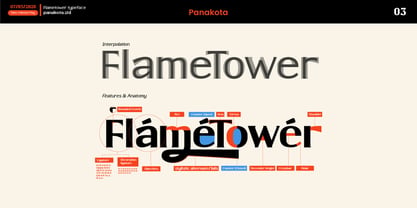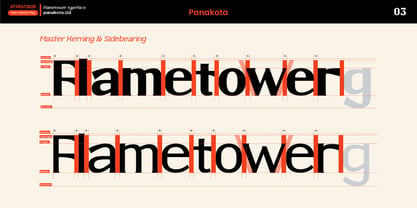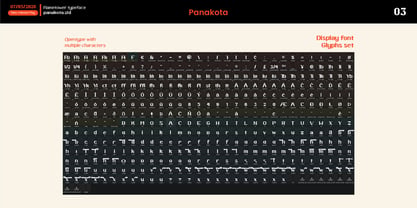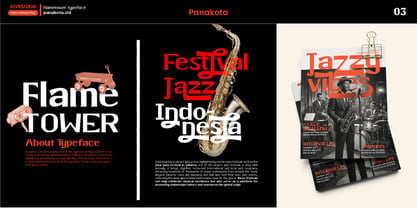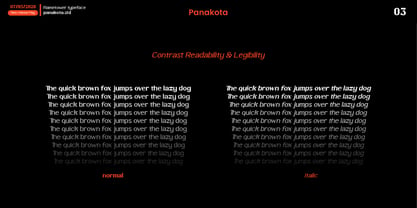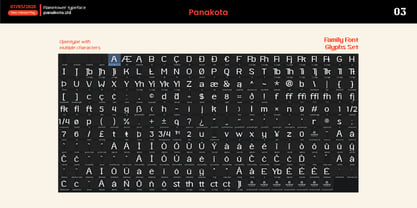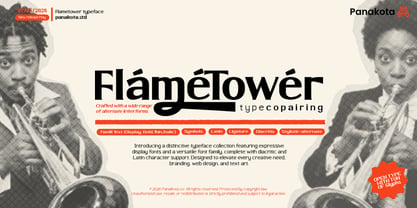
Flame Tower
by panakotype
The Flame Tower Font Family was designed by Restu Hadi and published by panakotype. Flame Tower contains 19 styles and family package options. More about this family
Rooted in the clarity of sans-serif design, this typeface was built for brands that have something to say and want to say it with personality. It's warm, confident, and knows how to have a little fun without losing its edge.
Shaped for logotype use, this font brings the right balance of playfulness and modernity. The letterforms feel loose and approachable without being sloppy, fun without feeling juvenile, and modern without being cold. It's the kind of typeface that makes a brand name look like it was meant to be there.
This family comes complete with a dedicated Display variant, built specifically for headlines and brand identity work that needs to show up stronger and with more character. Paired alongside the text variant for everyday body copy and text box use, the two are designed to work together as one cohesive typographic system.
The full character range spans from Thin to Extra Bold, with italic styles included to support body text needs. Whether you're setting a long-form article or building a tight editorial layout, every weight has its place and every italic earns its keep.
A complete type system for creatives, startups, and lifestyle brands who want their work to feel alive.
Designers: Restu Hadi
Foundry: panakotype